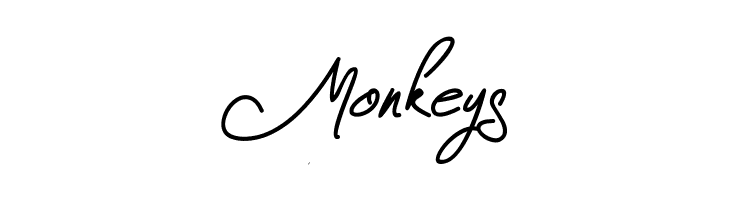
An elegant, flowing script font with intricate loops and a handwritten feel.
An elegant, flowing script font with ornate uppercase and smooth lowercase letters.
Handwritten cursive script font.